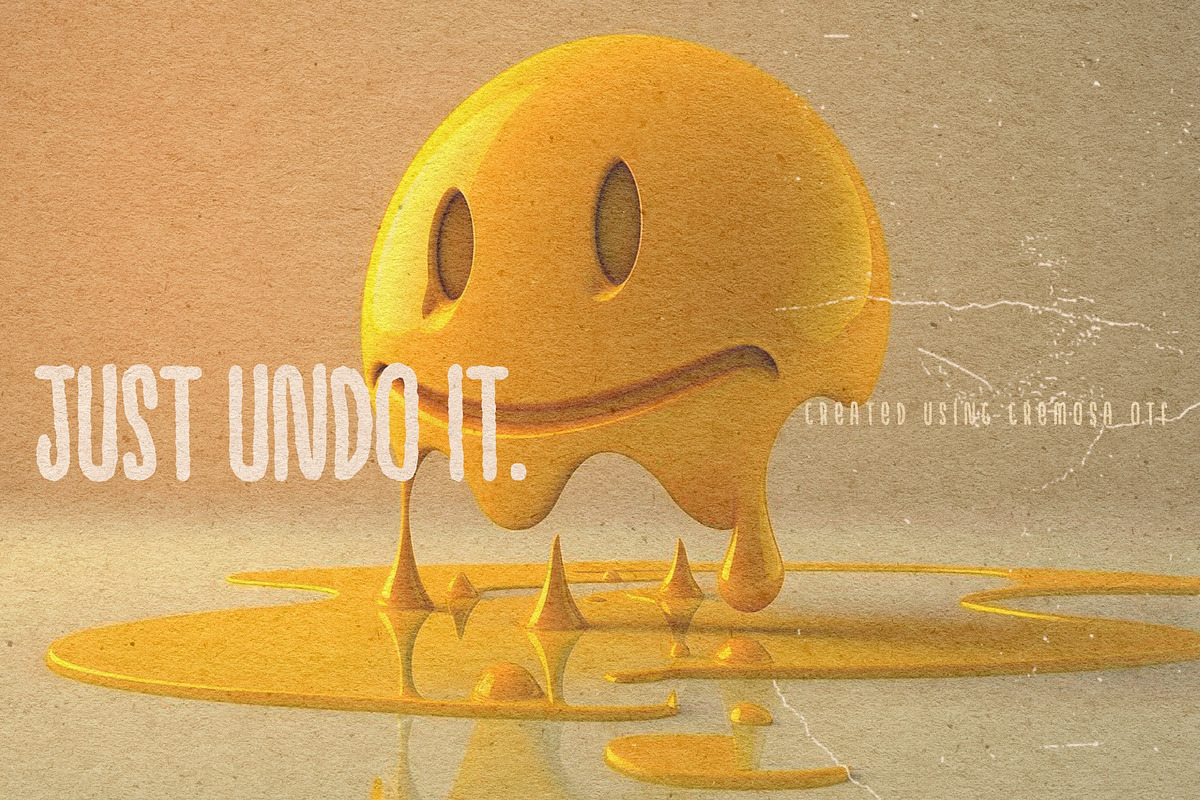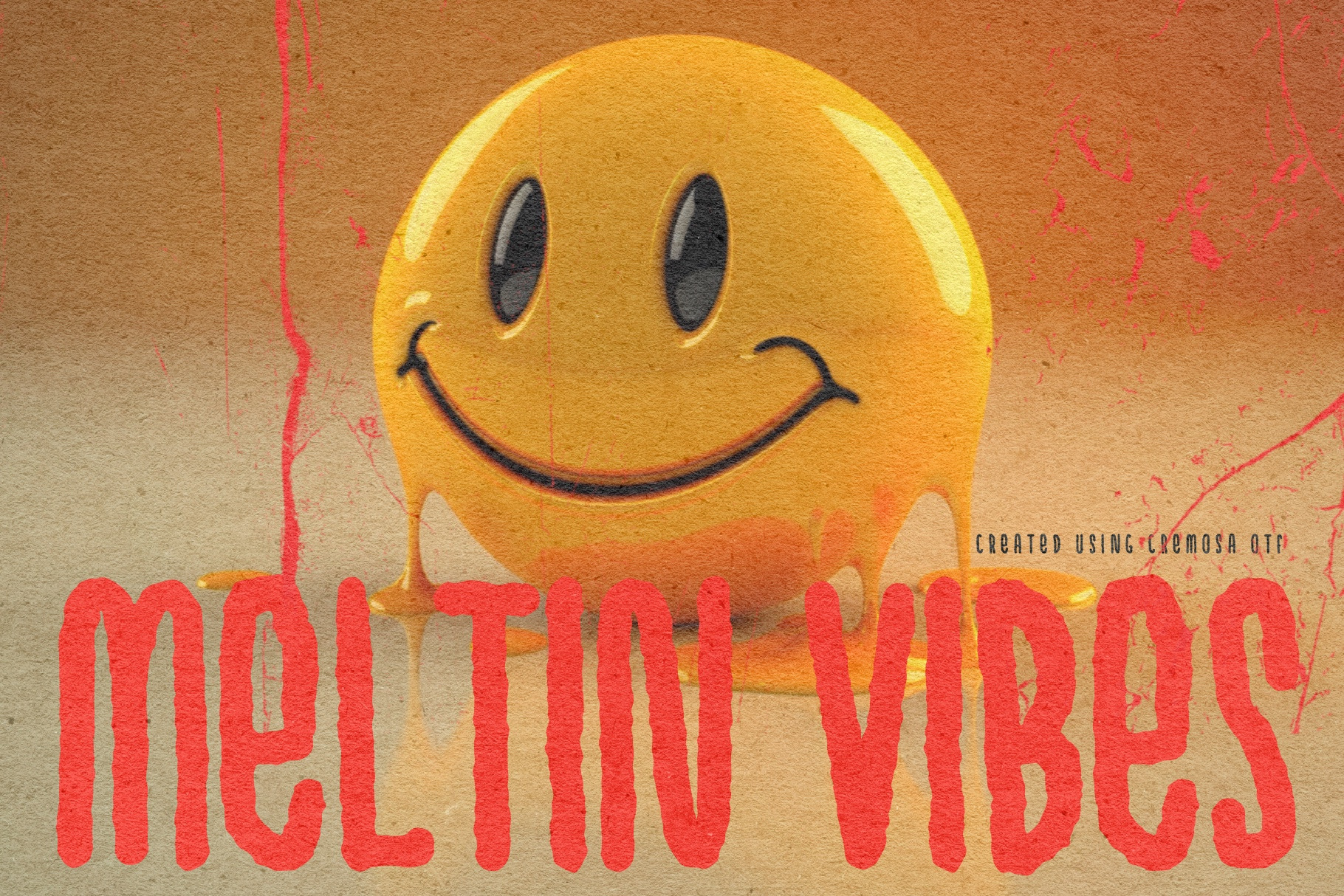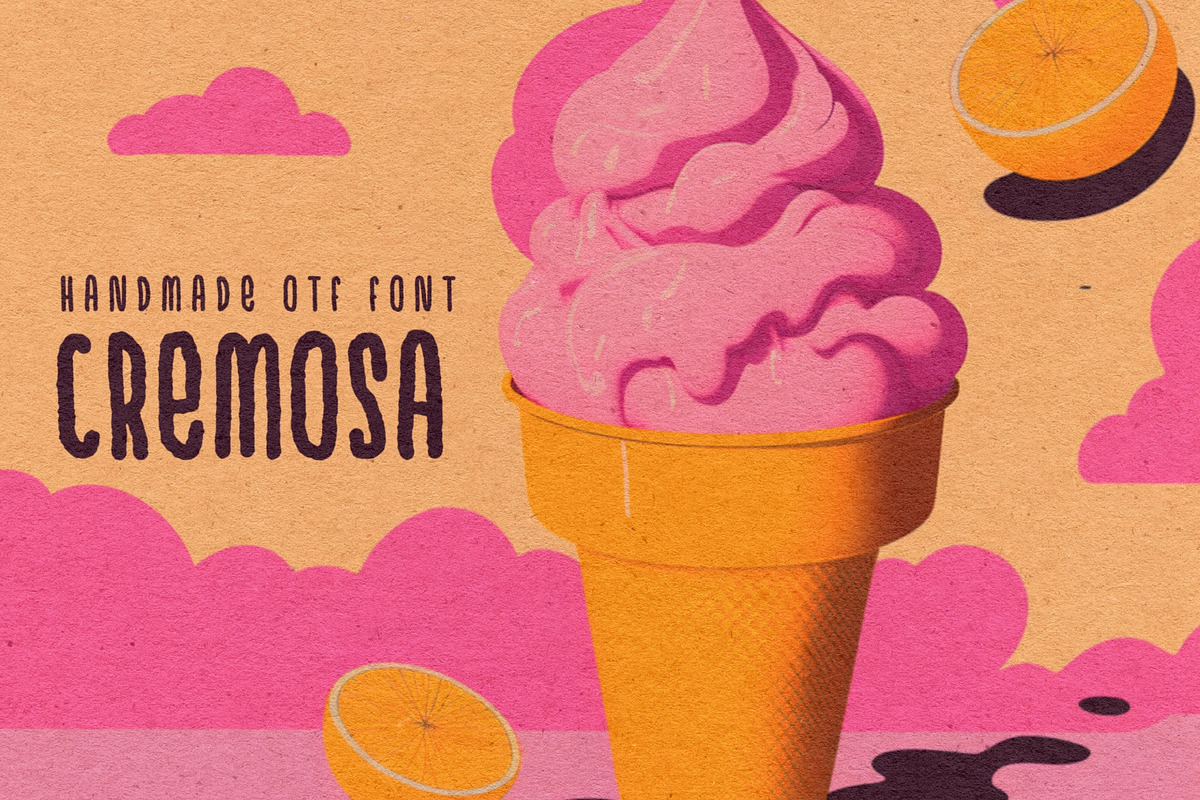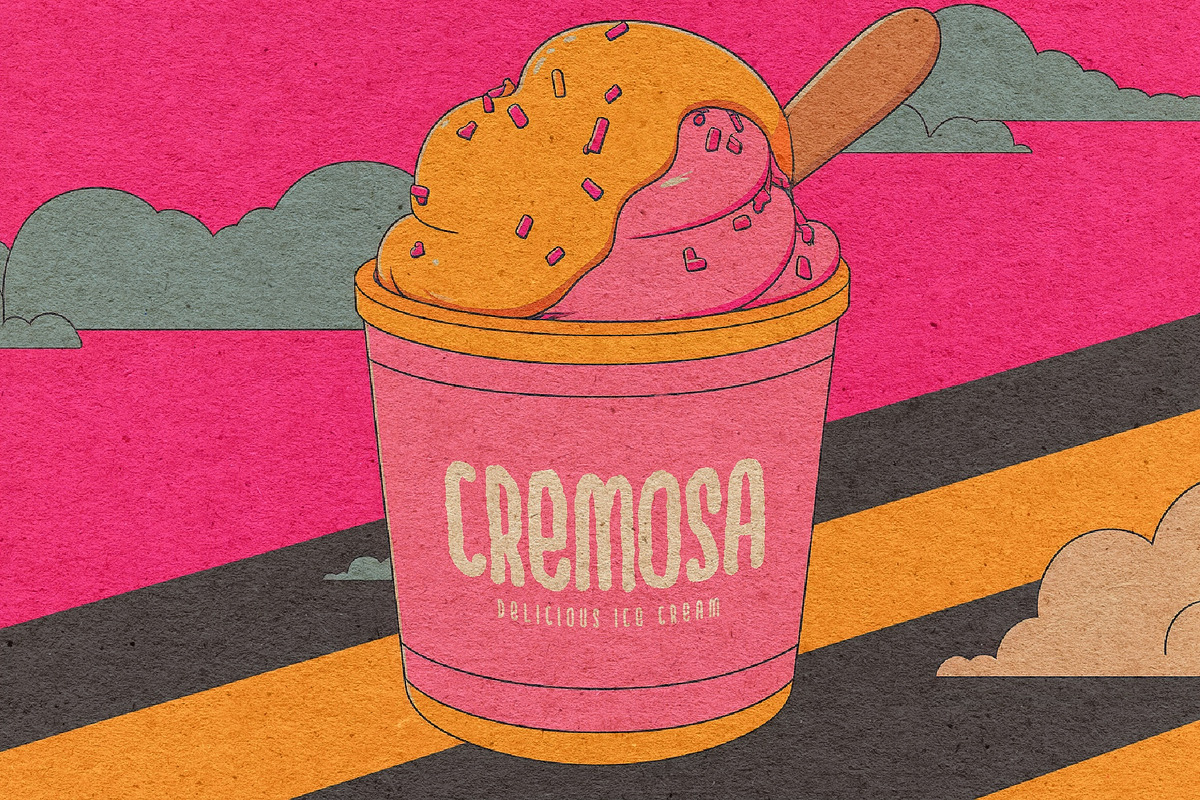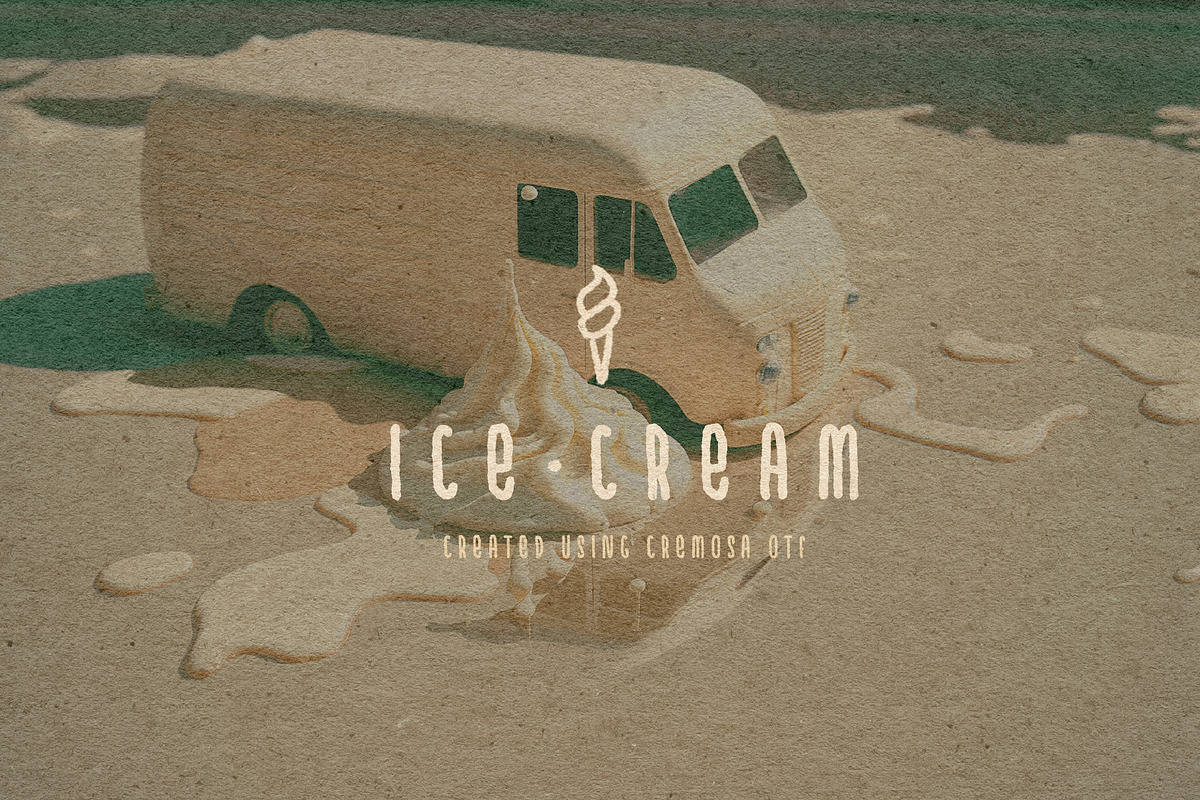
CREMOSA FONT
Cremosa OTF is a unique and versatile open type font that blends the charm of handmade lettering with a touch of rustic imperfection. This font features a distinctive and charming hand-drawn "low" quality, that gives it a wonderfully authentic and natural feel. The imperfections of this font add a touch of warmth and personality, making it perfect for design projects that require a rustic or vintage aesthetic, (ps.: kids love this style). Whether you are creating branding for a quaint cafe, a craft store, a local market, or a simple and fancy invite, Cremosa OTF will bring a touch of timeless charm to your designs. SPECIAL CHARACTERS INCLUDED*